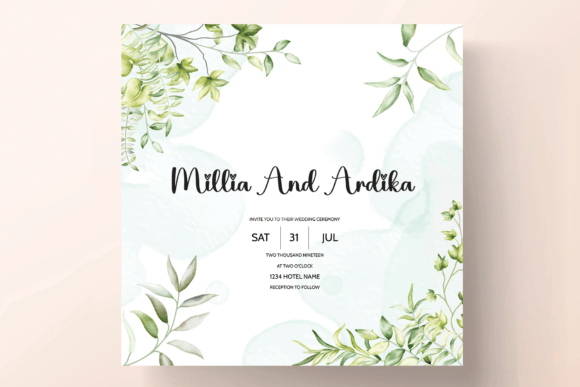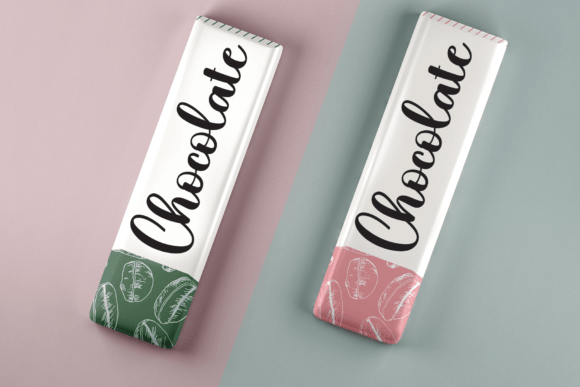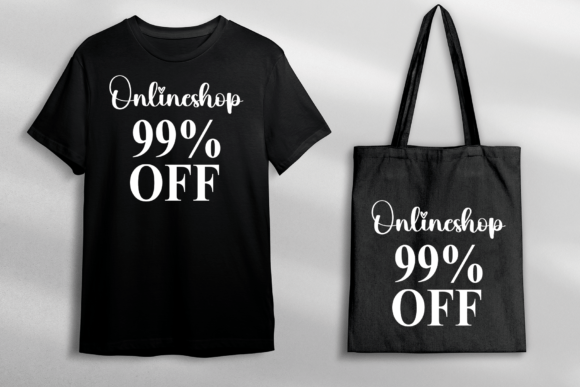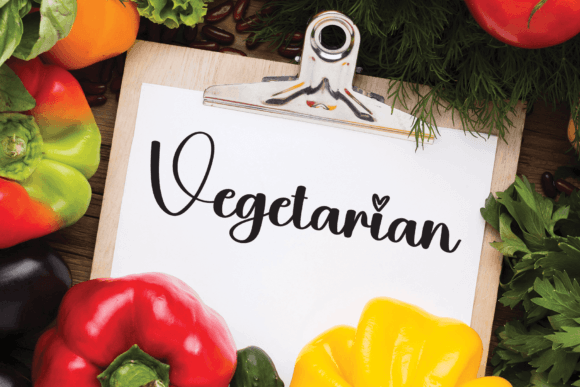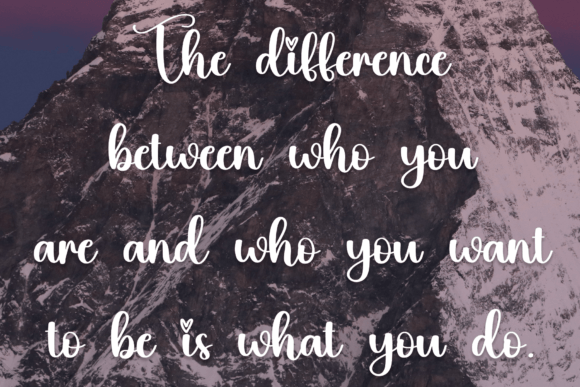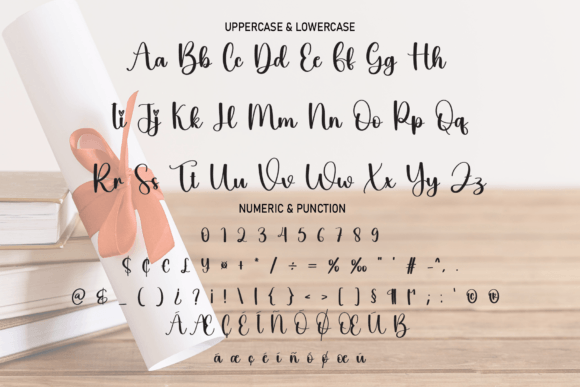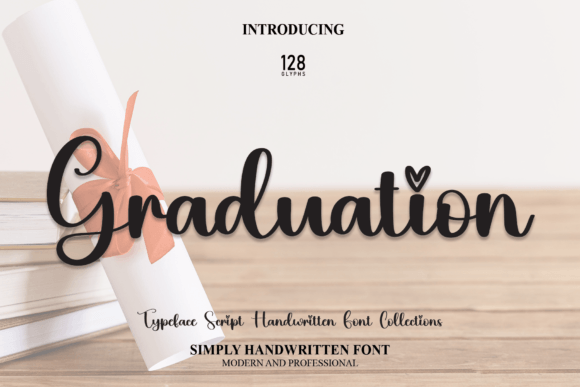
The Art of Expressing Yourself: Introducing Graduation Font
Do you ever find yourself staring at a blank canvas, waiting for inspiration to strike? That’s exactly what happened to me when I first laid eyes on Graduation Font. Its unique, handwritten style is the perfect blend of elegance and playfulness – the perfect spark to ignite my creative flame.
As a go-to font for designers, Graduation Font is the ultimate solution for adding a personal touch to any project. From wall displays and wedding invitations to social media logos and product packaging, this versatile font is perfect for any creative endeavor. Its value lies in its ability to evoke a sense of authenticity and human connection, making it an invaluable tool for designers who want to leave a lasting impression.
Graduation Font Key Features
• Font Family: Graduation Font is a unique, hand-drawn font designed to resemble a graduation certificate.
• Unique Characteristics: The font features intricate details and ornaments, making it perfect for creating a celebratory atmosphere.
Designer Review: Graduation Font
Overall, I think the Graduation Font is a nice addition to any design project. Here are some of its strengths: ✨
• Its elegant and sophisticated feel makes it perfect for formal and celebratory designs, like graduation announcements or certificates.
• The font’s unique and eye-catching style helps to grab the viewer’s attention and create a memorable impression.
• It’s highly customizable, allowing designers to adjust the font’s style and size to fit their specific needs.
However, I do have a few concerns: ⚠️
• The font can be a bit too ornate for some designs, potentially overwhelming the viewer.
• It may not be the best choice for body text, as it can be difficult to read at smaller font sizes.
• The font’s unique style may not be to everyone’s taste, potentially limiting its use in certain design projects.
In conclusion, the Graduation Font is a versatile and stylish option that can add a touch of elegance to any design. While it may not be perfect for every project, I think it’s a great choice for formal and celebratory designs where a little extra flair is needed.
Graduation Font is commonly used for:
1. Graduation invitations and announcements.
2. Diplomas and certificates.
3. Educational and academic designs.